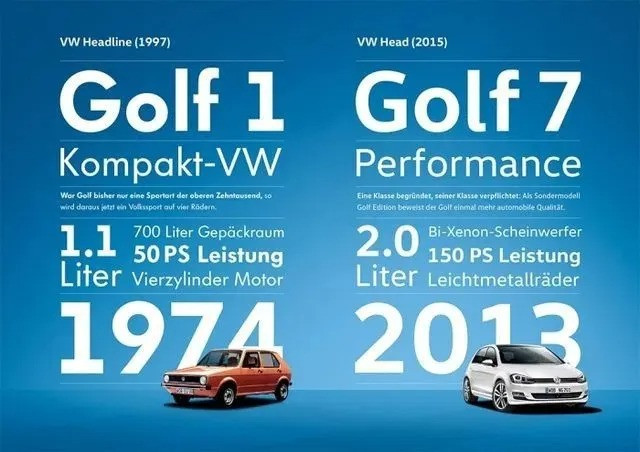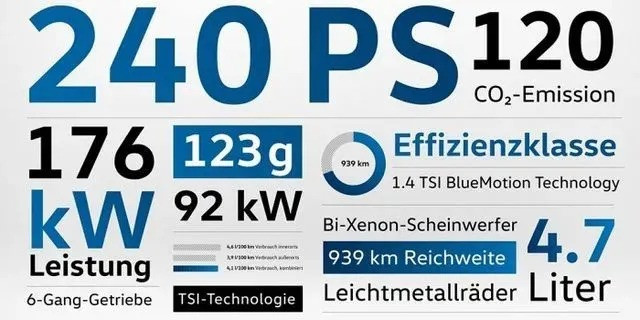
Volkswagen Font Family
Volkswagen is a big and famous car company. Among them is the typeface of the Volkswagen brand, with the stylized VW.
Now we introduces you to the fonts Volkswagen is using.